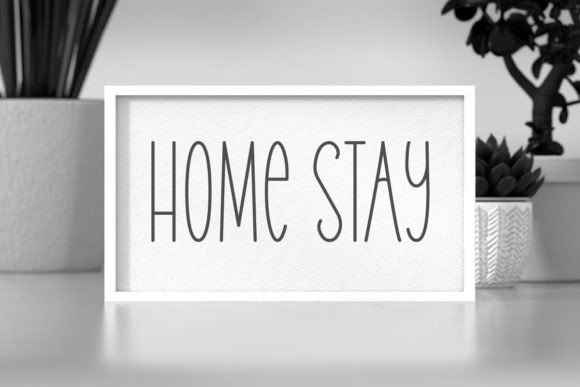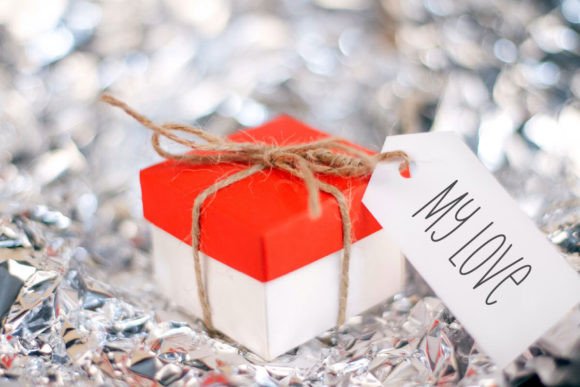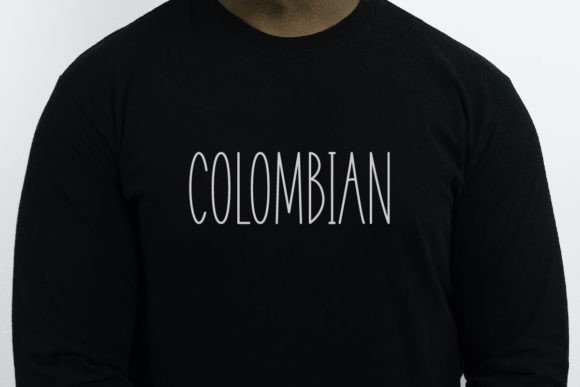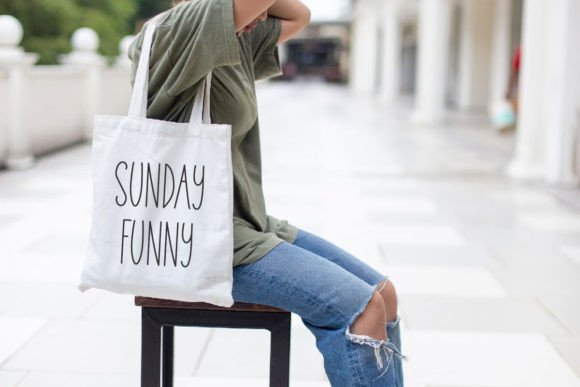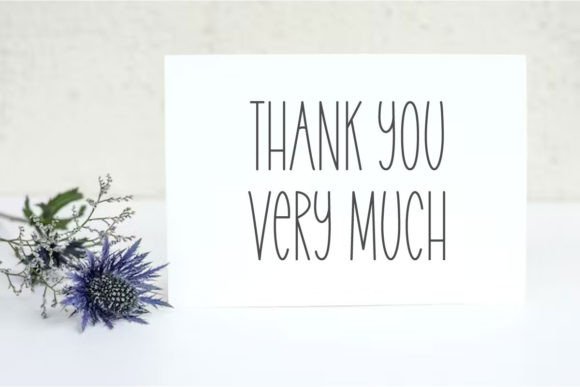
Introducing Farmhouse Ecology Font: Elevate Your Designs with a Rustic Touch
Are you a designer, crafter, or DIY enthusiast looking for a font that embodies the charm of the countryside? Look no further than Farmhouse Ecology Font, a tall and thin sans serif font that is perfect for adding a rustic touch to your home decor and craft designs. In this article, we’ll explore the features and benefits of Farmhouse Ecology Font, and how it can elevate your designs to the next level.
What is Farmhouse Ecology Font?
Farmhouse Ecology Font is a unique and stylish sans serif font that is designed to evoke the simplicity and elegance of rural landscapes. Its tall and thin lettering makes it perfect for creating eye-catching designs that stand out from the crowd. Whether you’re looking to create party invitations, signs, labels, greeting cards, or t-shirt designs, Farmhouse Ecology Font is the perfect choice.
Features of Farmhouse Ecology Font
- Tall and Thin Lettering: Farmhouse Ecology Font features tall and thin lettering that is perfect for creating elegant and sophisticated designs.
- Sans Serif Design: The font’s sans serif design makes it easy to read and perfect for use in a variety of design applications.
- Versatile: Farmhouse Ecology Font is versatile and can be used for a wide range of design projects, from party invitations to website branding.
- Easily Readable: The font is easily readable, making it perfect for use in designs where clarity is important.
Uses of Farmhouse Ecology Font
Farmhouse Ecology Font is perfect for a wide range of design applications, including:
- Home Decor Designs: Use Farmhouse Ecology Font to create beautiful home decor designs, such as wall art, signs, and labels.
- Craft Designs: The font is perfect for craft designs, such as party invitations, greeting cards, and gift tags.
- Party Invitations: Create eye-catching party invitations with Farmhouse Ecology Font.
- Signs and Labels: Use the font to create signs and labels for your home, garden, or business.
- T-Shirt Designs: Farmhouse Ecology Font is perfect for t-shirt designs, adding a rustic touch to your apparel.
- Websites and Branding: Use the font to create a cohesive brand identity for your website or business.
- Children’s Designs: The font is also suitable for children’s designs, such as coloring books, stickers, and activity sheets.
- Blogs and Social Media: Use Farmhouse Ecology Font to create engaging blog posts and social media graphics.
- Logos and Icons: The font can be used to create unique logos and icons for your business or brand.
- Invitations and Announcements: Create beautiful invitations and announcements with Farmhouse Ecology Font.
Benefits of Using Farmhouse Ecology Font
Using Farmhouse Ecology Font in your designs offers a range of benefits, including:
- Unique and Eye-Catching Designs: The font’s unique and stylish design makes it perfect for creating eye-catching designs that stand out from the crowd.
- Rustic Charm: Farmhouse Ecology Font adds a rustic touch to your designs, perfect for creating a cozy and inviting atmosphere.
- Versatility: The font’s versatility makes it perfect for use in a wide range of design applications.
- Easily Readable: The font is easily readable, making it perfect for use in designs where clarity is important.
Farmhouse Ecology Font is a unique and stylish sans serif font that is perfect for adding a rustic touch to your home decor and craft designs. Its tall and thin lettering makes it perfect for creating eye-catching designs that stand out from the crowd. With its versatility, readability, and rustic charm, Farmhouse Ecology Font is the perfect choice for designers, crafters, and DIY enthusiasts looking to elevate their designs to the next level.